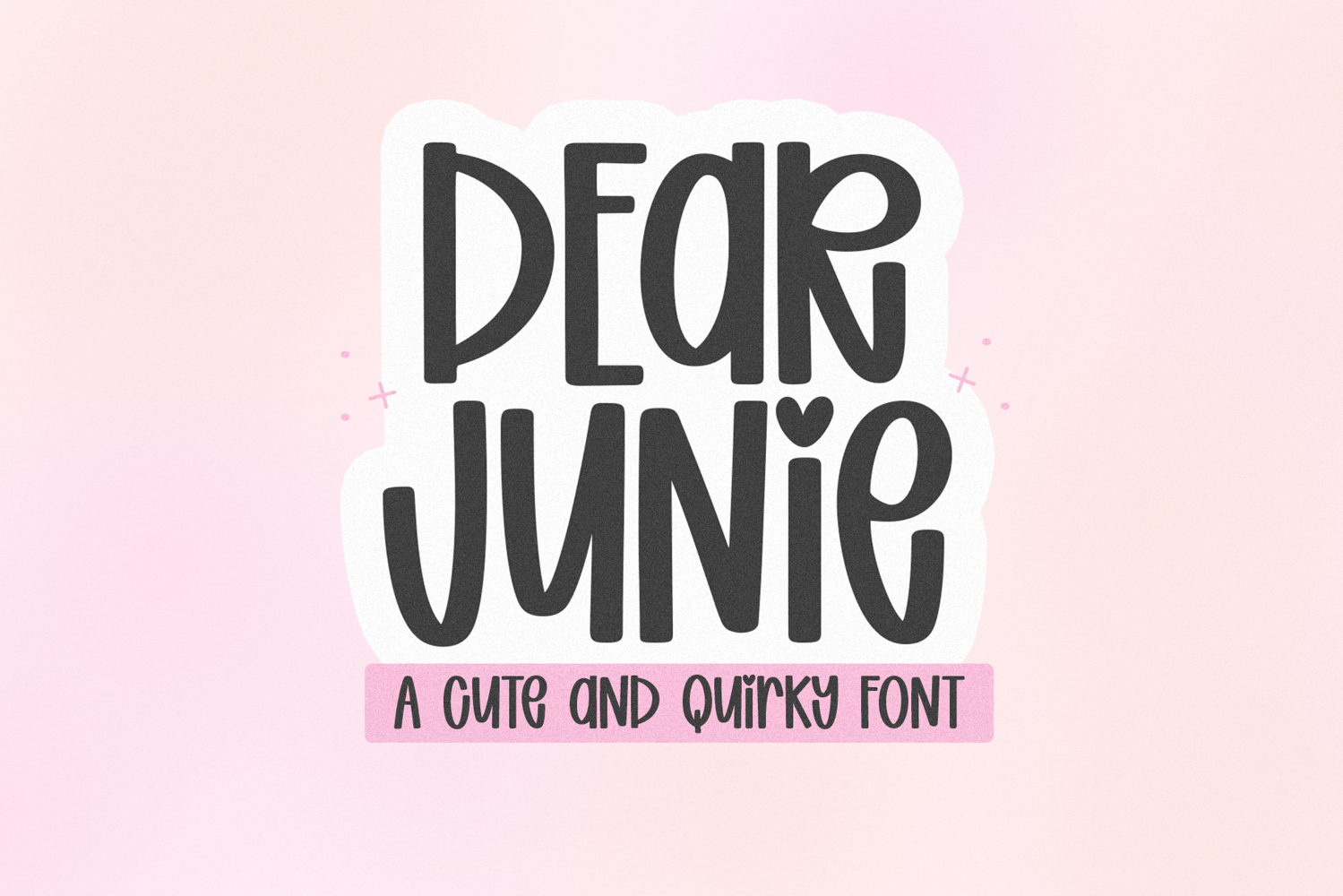
Dear Junie - Cute and Quirky Font
Dear Junie
Dear Junie is a cute handwritten font - think of this one as the bolder big sister to Girls Rule!
Includes all capital letters and a mix of lowercase
key = regular lowercase i
^ key = heart